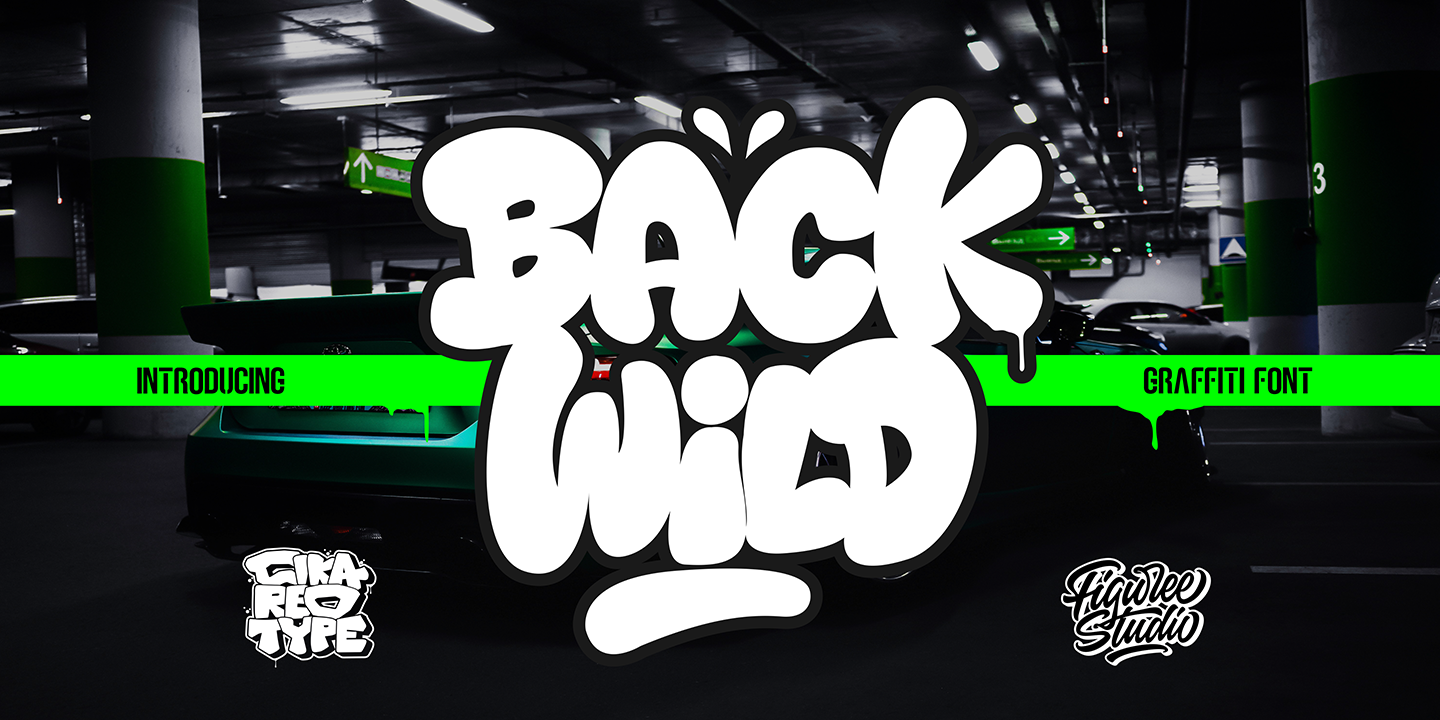
Perfect for urban streetwear branding, hip-hop album covers, skateboard graphics, youth culture campaigns, underground event posters, street art exhibitions, urban fashion labels, and rebellious marketing materials.
This font is exciting because it captures the raw energy and authentic rebellious spirit of street culture with bold, expressive letterforms that bring genuine urban attitude to any design project.
Unleash the power of street culture with Back Wild Graffiti Font Free Download, an electrifying typeface that embodies the authentic spirit of urban expression and underground creativity. This exceptional font brings the raw energy of street art directly to contemporary design projects, making it perfect for brands seeking to connect with youth culture and urban audiences who value genuine artistic rebellion and authentic self-expression.
Back Wild Graffiti Font features dynamically crafted letterforms with bold strokes and expressive characteristics that capture the spontaneous energy of street art and graffiti culture. The carefully designed characters combine traditional graffiti aesthetics with modern readability, ensuring maximum visual impact while maintaining the authentic urban character that resonates with street culture enthusiasts and alternative lifestyle consumers.
The font's remarkable authenticity makes it invaluable for brands and organizations targeting urban demographics where credibility and street culture connections are essential for market acceptance and brand loyalty. Whether you're designing campaigns for streetwear companies that celebrate urban fashion, creating promotional materials for hip-hop artists and underground musicians, or developing brand identities for youth-oriented businesses, Back Wild Graffiti Font delivers the genuine street aesthetic that builds trust with discerning urban audiences.
Creative agencies and urban brands worldwide choose the Back Wild Graffiti Font Free Download for projects requiring authentic street credibility and youth culture appeal. The font works brilliantly for skateboard companies celebrating action sports culture, urban art galleries showcasing street artists, music venues promoting underground performances, and any business seeking to establish genuine connections with urban communities through respectful and authentic visual communication.
The comprehensive Back Wild Graffiti Font family includes variations that maintain the signature street aesthetic while providing design flexibility for diverse urban marketing applications. Each character demonstrates exceptional attention to graffiti art principles, ensuring the rebellious character remains authentic and visually compelling across all sizes, from large-scale murals and outdoor advertising to detailed merchandise designs and digital applications.
This typeface excels in applications where creating authentic urban atmosphere and connecting with street culture is crucial for brand success and audience engagement. The expressive letterforms create immediate credibility that eliminates the need for forced urban styling, allowing the typography itself to communicate genuine street culture appreciation and authentic urban lifestyle connections.
Back Wild Graffiti Font's technical excellence ensures optimal performance across both digital and print applications common in urban marketing and street culture communications. The distinctive letterforms maintain their rebellious impact when reproduced on various materials, from clothing and merchandise to large-scale outdoor advertising that must capture attention in urban environments.
The font represents more than typography—it's a respectful celebration of street art culture and urban creativity, making it invaluable for brands seeking authentic connections with urban communities and youth culture movements.